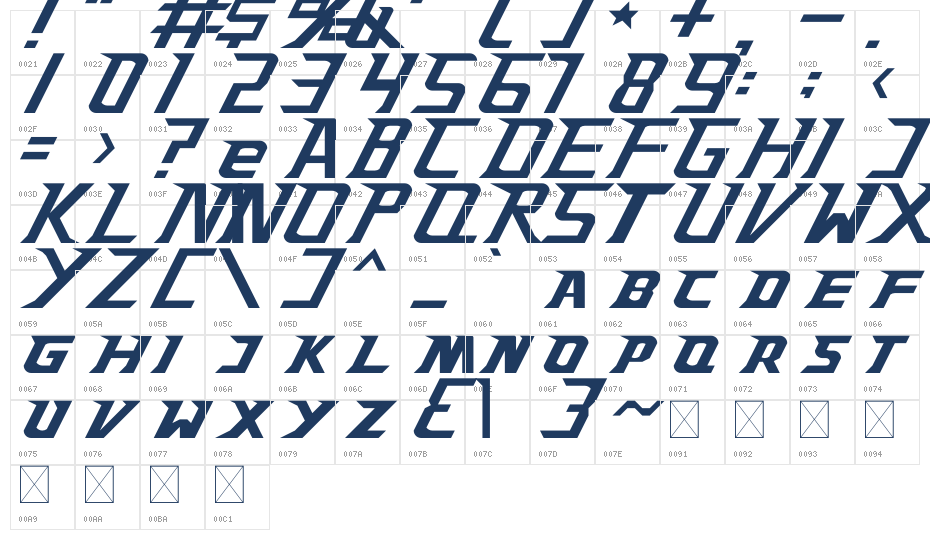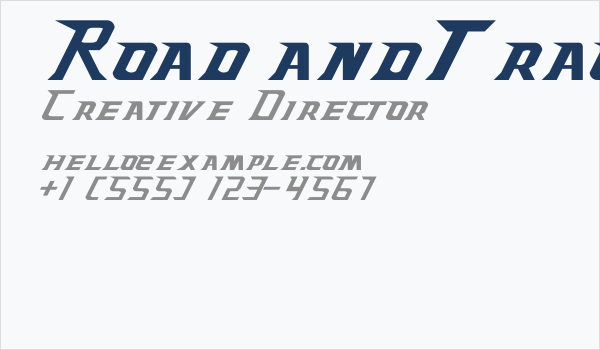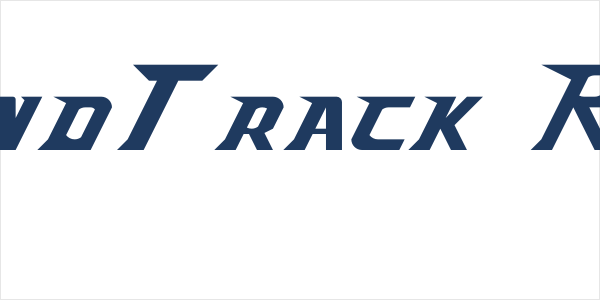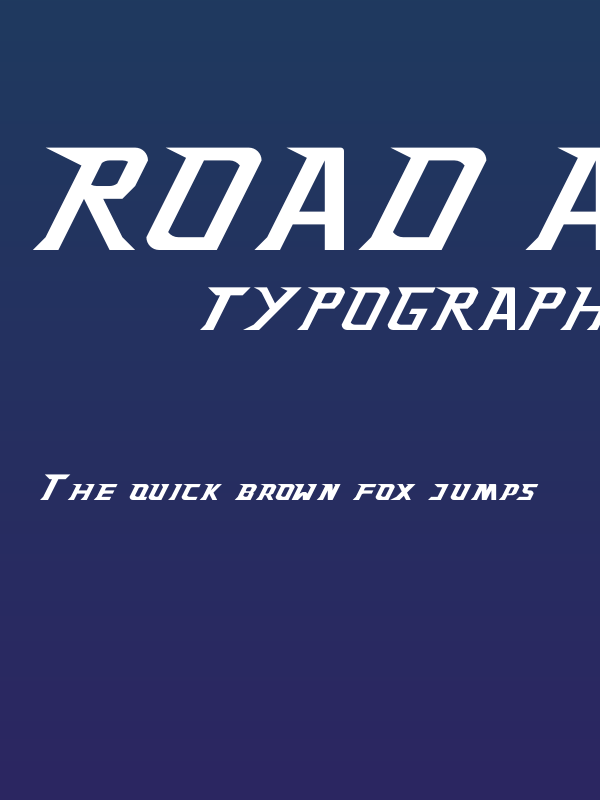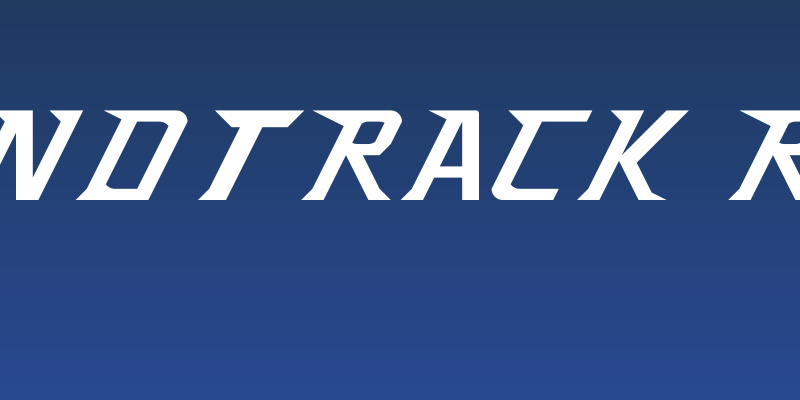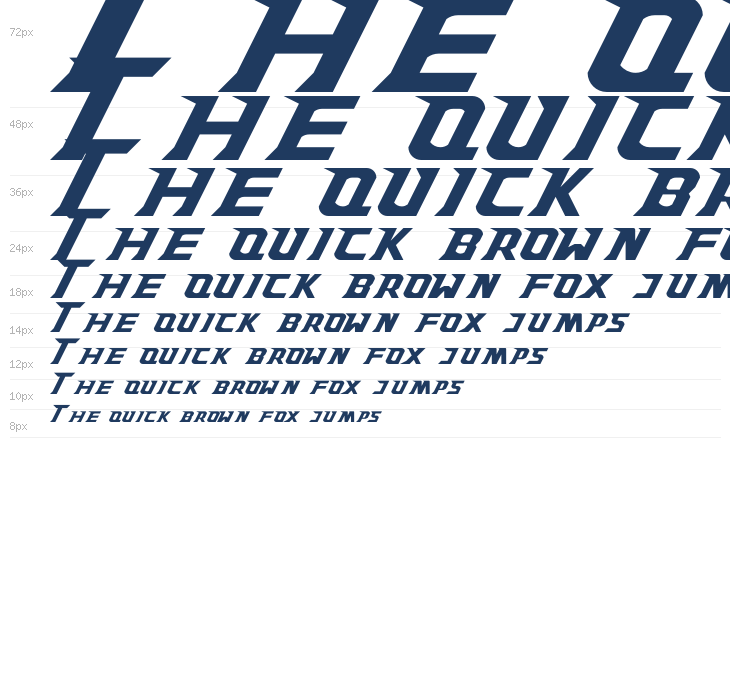
Road and Track Regular Font
Road and Track Regular Description
This font features a bold and dynamic style, characterized by its strong geometric shapes and clean lines. The uppercase letters are particularly striking, with a uniform height that creates a cohesive and balanced look. The lowercase letters maintain the same boldness, ensuring readability and consistency across different text sizes. Numbers and special characters are designed to match the overall aesthetic, providing a seamless integration into any design. The font's modern and sleek appearance makes it suitable for a variety of applications, from digital media to print.
road and track